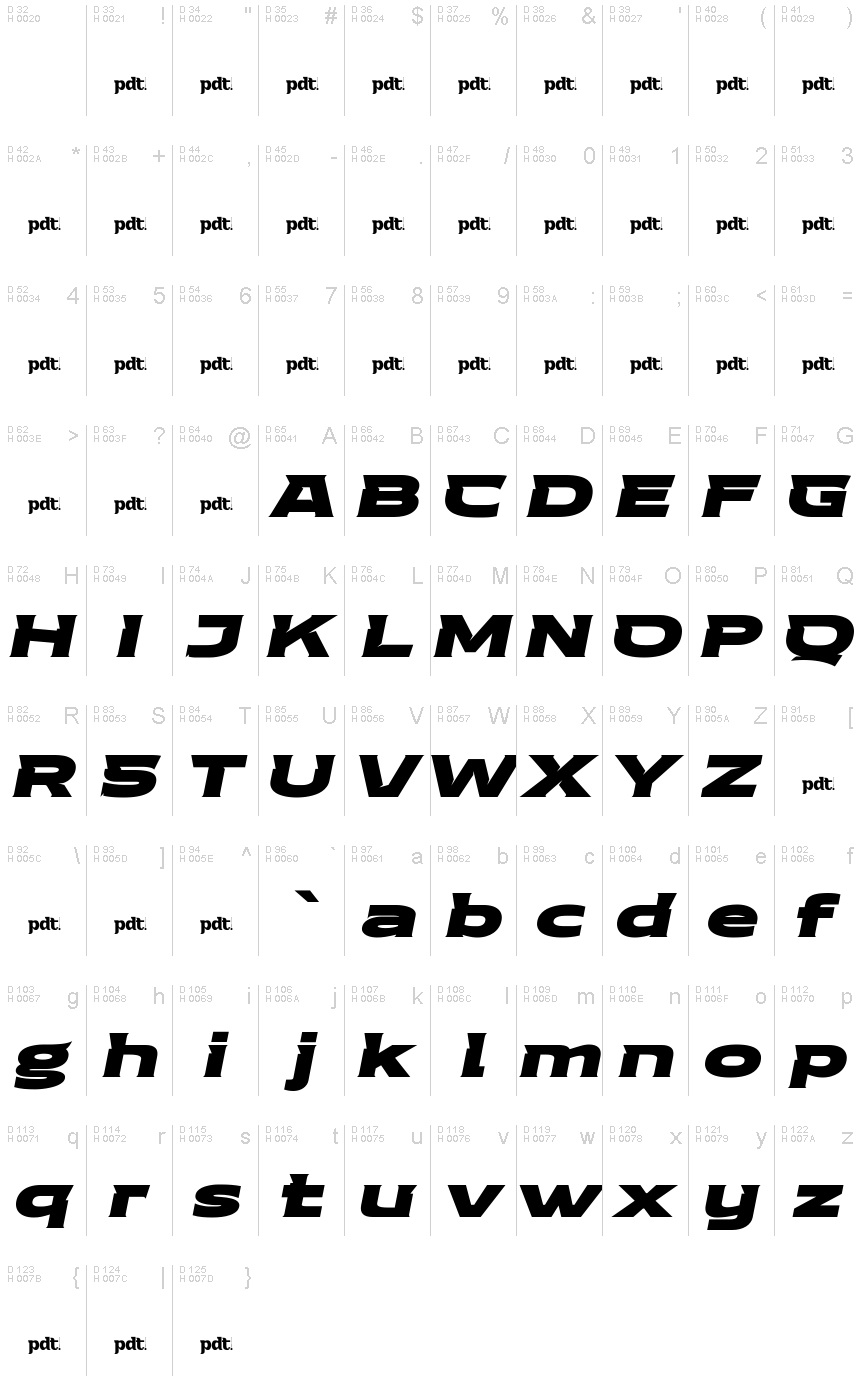
REDOB Serif Slant
Redob Serif Slant font, part of the Redob family and crafted by productype, captivates with its bold and expanded design. This free font exudes confidence and dynamism, perfect for making a statement in any project. The slanted serif style adds a touch of elegance while maintaining a contemporary edge, ensuring your designs stand out.
Ideal for branding, headlines, or editorial work, Redob Serif Slant effortlessly draws attention. Download this exquisite font to elevate your creative endeavors with distinct flair and modern sophistication.